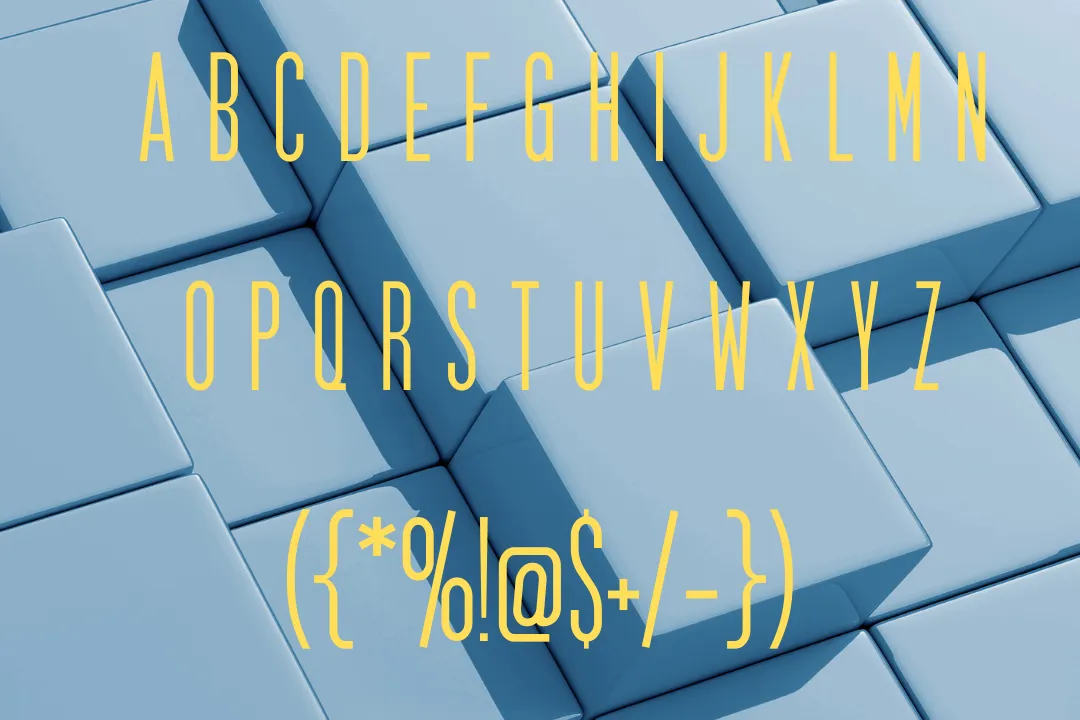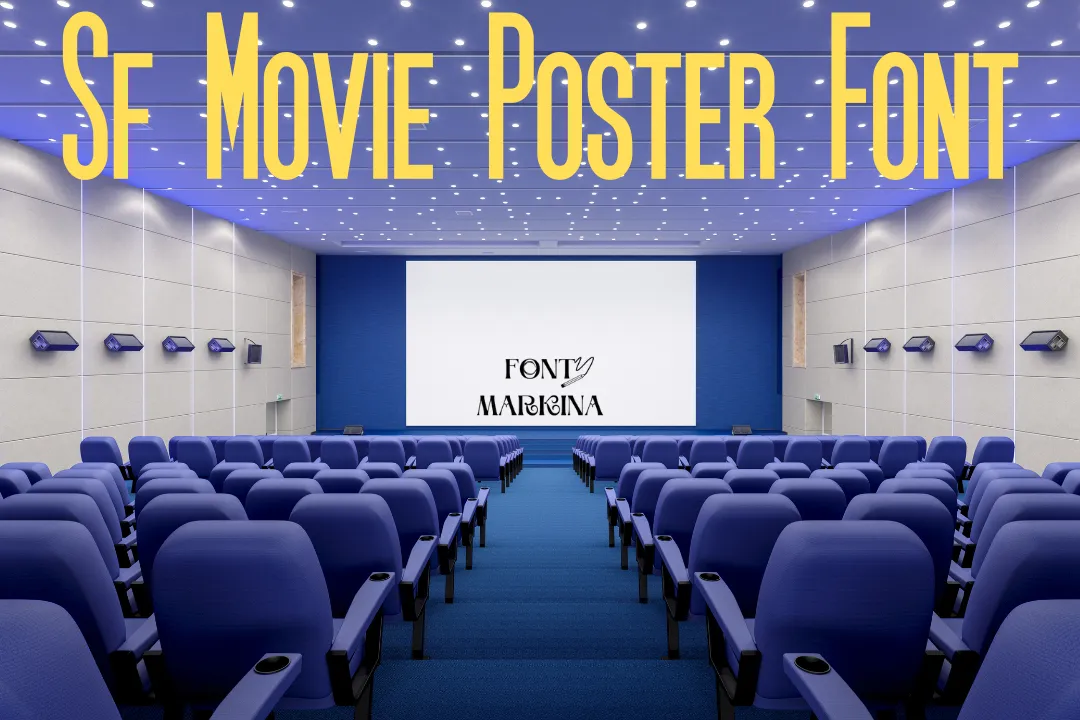
Here, we present a tremendous typeface that goes by the name Sf Movie poster Font. This typeface is included in the category of the sans serif family. One best thing about this typeface is it available in 7 popular styles.
Uses of Sf Movie poster Font
This stunning typeface is used for a wide variety of locations. In all advanced companies, this family is mostly used for many projects like items packaging, clothes designs, and many more.
You can also use it for all of your personal and secret tasks and plans. If you are a beginner graphic designer then use the helpful features of this font for a lot of functions. It is commonly used for writing newsletters and fashion magazines.
All web developer creates their personal blogs, templates, and so on. You can use this family for billboards, infographics, vehicle wraps, print designs, and many other designs. This typeface can be easily paired with Point Font.
Sf Movie poster Font View
| Style | Sans Serif |
What type of font is Sf Movie Poster Font?
This classy font is a basic sans-serif typeface and whitney semibold font is similar to this font. The designer of this family took inspiration from other popular sans-serif fonts.
Where we can use the Sf Movie Poster typeface?
This family can be used for many purposes like creating items packaging, making clothes designs, writing newsletters, and so on.